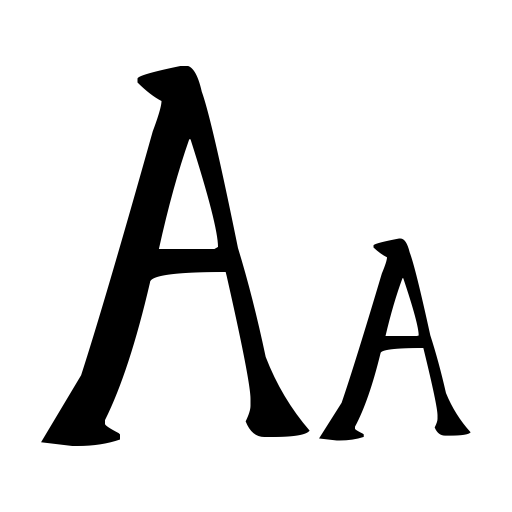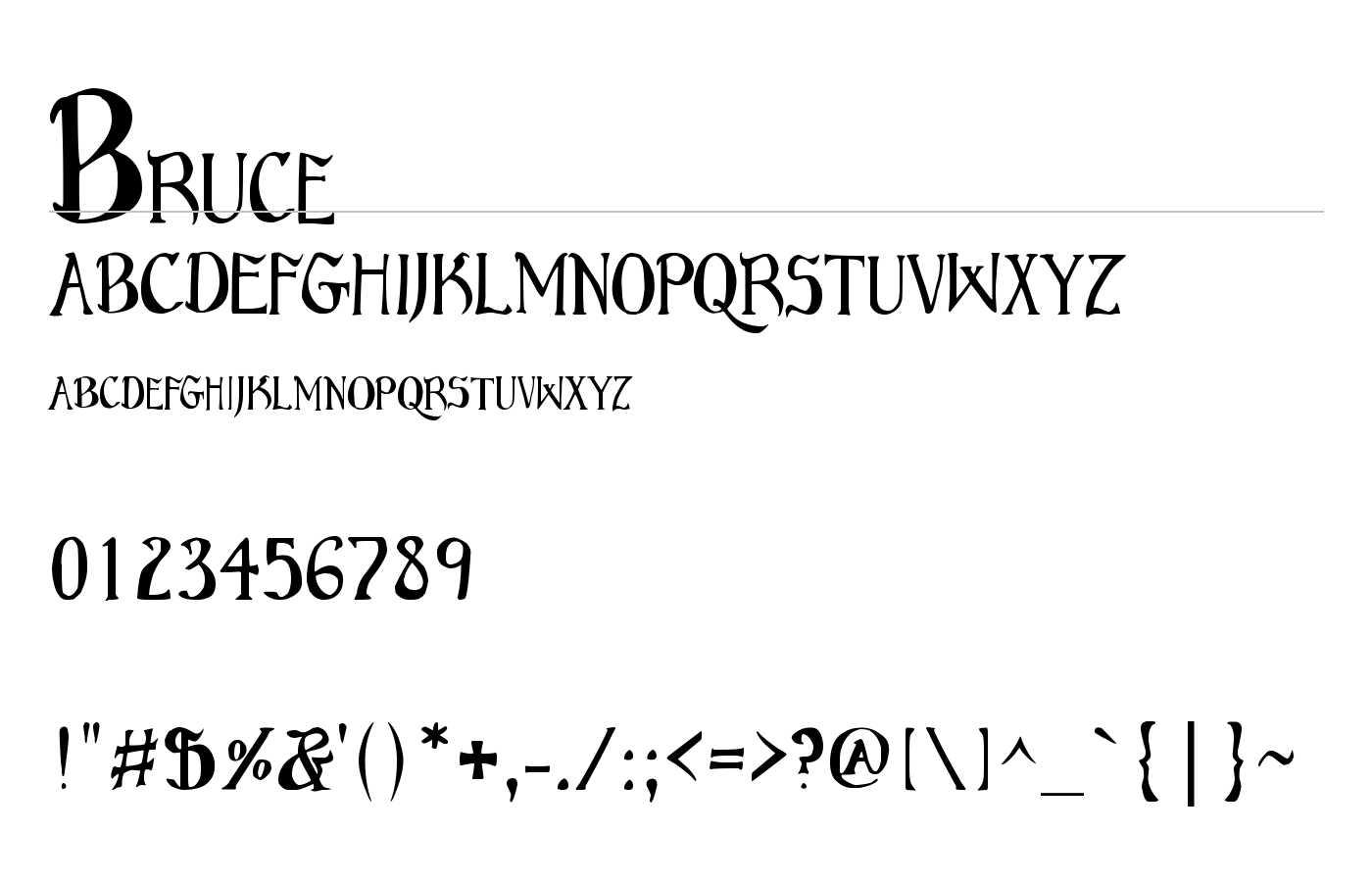
Bruce Scaled is a distinctive serif font with a quirky, hand-drawn feel that combines elegance with a touch of playfulness. Its lightly irregular strokes, bracketed serifs, and unique letterforms create an artistic, slightly vintage vibe that works well for creative branding, headlines, or decorative uses where personality and charm are desired. This font shines in projects needing a special, handcrafted touch without sacrificing readability.
Bruce Scaled Font
About Bruce Scaled Font
| Font family | Bruce Scaled Font |
| Designer | Bill Roach |